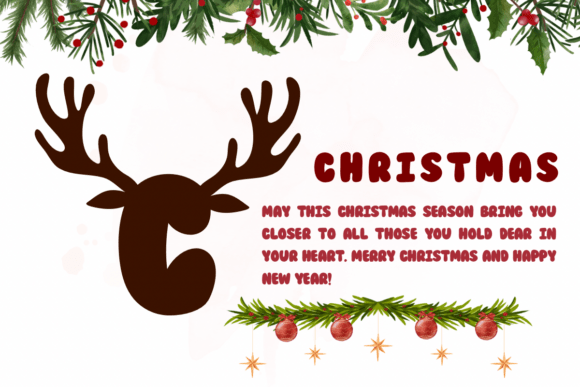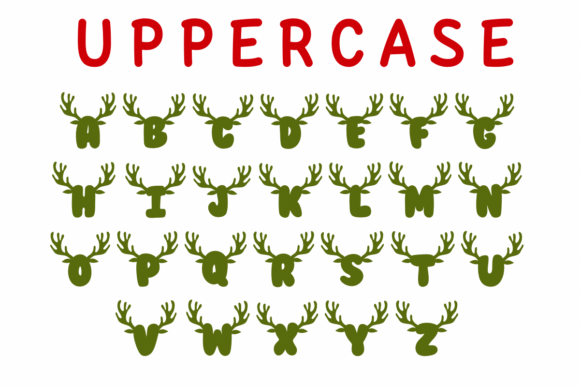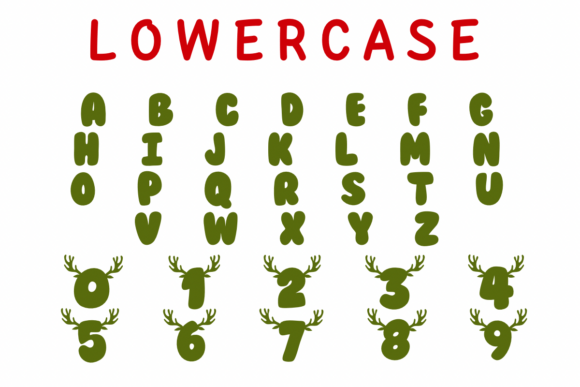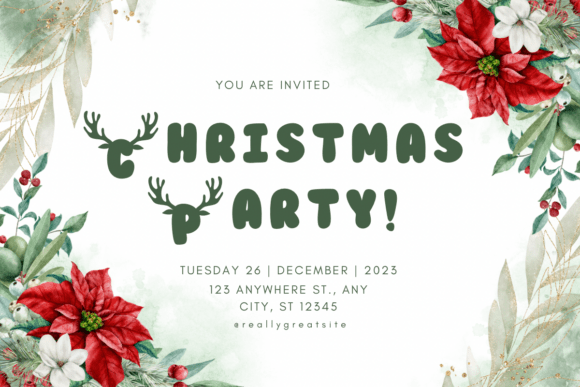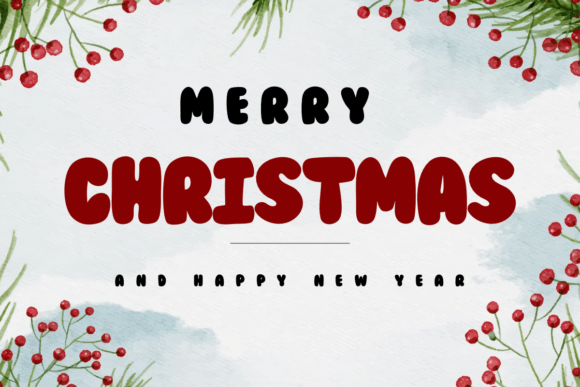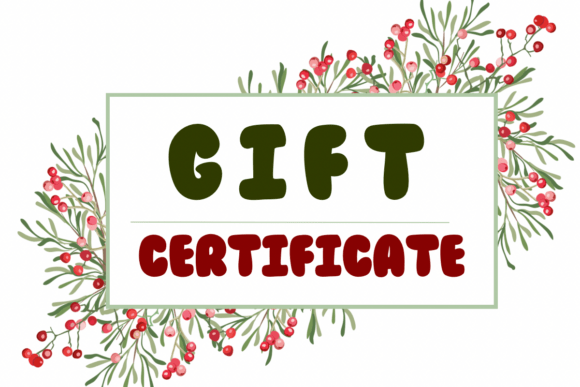
Introduction to Christmas Cute Deer Font
Christmas Cute Deer is a festive decorative display font featuring rounded letterforms and charming holiday motifs.
Each glyph carries a soft, friendly structure enhanced by playful design elements like antlers and festive accents The typeface combines bold shapes with smooth edges to create a cheerful and inviting tone suitable for seasonal themes.
Key Features of Christmas Cute Deer Font